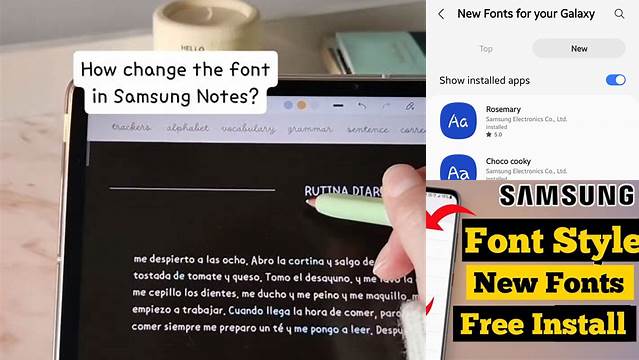
Awesome Free Fonts For Your Samsung Notes
Hey everyone! If you're a Samsung Notes aficionado like me, you know how important it is to personalize your note-taking experience. And what better way to do that than with some cool fonts? Finding free fonts for Samsung Notes can be a game-changer, transforming your mundane scribbles into visually appealing masterpieces. In this guide, we'll dive deep into the world of free fonts, exploring how to install them on your Samsung devices and offering tons of tips to make your notes stand out. So, buckle up and get ready to elevate your note-taking game! Let's get started and unlock the full potential of your Samsung Notes app with some amazing, free fonts!
H2: Why Bother with Free Fonts for Samsung Notes?
Why should you even bother with free fonts for Samsung Notes? Well, the pre-installed fonts are fine, but they're not exactly bursting with personality, are they? Adding custom fonts is like giving your notes a stylish makeover. Imagine the difference between a plain, boring notepad and one that reflects your unique style and preferences. It's all about making your notes more engaging, more memorable, and more fun to create. First impressions matter, right? When your notes look good, you're more likely to enjoy the process of taking them, which in turn leads to better retention of information. Let’s face it, when you're staring at a screen all day, something as simple as a cool font can make a world of difference! Custom fonts can also help you categorize and organize your notes more effectively. By using different fonts for different topics, you can quickly scan your notes and find what you need, making it easier to study, work, or just stay organized. Plus, it's just plain fun! Experimenting with different fonts and styles can boost your creativity and make the note-taking process more enjoyable. It's a simple way to add a touch of flair to your digital life and express yourself in a unique way. So, whether you're a student, a professional, or just someone who loves to jot things down, exploring the world of free fonts for Samsung Notes is a fantastic way to enhance your note-taking experience and make it truly your own. Trust me; you will never look at your notes the same way again. It's a small change with a big impact.
H2: Where to Find Awesome Free Fonts
Okay, so you're on board with the font revolution, but where do you actually get these free fonts for Samsung Notes? The internet is your oyster, my friend! There are tons of websites offering downloadable fonts. Google Fonts is a great place to start. It's a massive, open-source library filled with fonts of every imaginable style, all completely free to use. The best part? These fonts are designed to work seamlessly across different devices, including your Samsung devices. Another great source is DaFont, which is a popular website with an enormous selection of fonts. It’s user-friendly, but be sure to check the licensing of each font, as some are only free for personal use. Creative Fabrica and Font Squirrel are also excellent resources. Both offer a wide range of free fonts and have clear licensing information, so you know exactly how you can use each font. Always make sure that you check the license before downloading and using a font. Some fonts are free for personal use but require a license for commercial purposes. Read the fine print to avoid any potential issues. Additionally, explore sites that offer font bundles or free font of the week promotions. These can be great ways to discover new and unique fonts that you might not find anywhere else. When choosing a font, consider the legibility, especially if you're using it for extended notes. Choose fonts that are easy to read, and avoid overly elaborate or stylized fonts that can strain your eyes. With a little bit of searching, you'll have a fantastic library of free fonts for Samsung Notes at your fingertips. Start exploring and find the perfect fonts to match your style and needs. There is a font out there for everyone.
H3: Google Fonts: Your Go-To Resource
Let's delve a little deeper into Google Fonts, shall we? As mentioned, Google Fonts is a treasure trove of free fonts for Samsung Notes, and it’s incredibly easy to use. The website is well-organized, allowing you to browse fonts by category (serif, sans-serif, handwriting, monospace), language, and even by the features you're looking for. You can also preview each font with your own text to see how it will look. That's a huge advantage, right? You can quickly assess whether a font fits your needs. Once you've found a font you like, downloading it is a breeze. You’ll typically download the font files (usually in .ttf or .otf format) and then install them on your device. Google Fonts is also great because all the fonts are open-source. This means they're not only free to download but also free to use for both personal and commercial projects. They're designed to be accessible and versatile, so you can use them confidently without worrying about licensing issues. Another advantage of Google Fonts is the consistency and quality. Google takes great care in curating its font library, ensuring that all fonts are of high quality and optimized for digital use. You'll find fonts that look great on your Samsung Notes, enhancing readability and visual appeal. Using Google Fonts is a perfect way to add a professional touch to your notes, documents, and other digital creations, all without spending a dime. It is a gift, guys, and you should take advantage of it! So go ahead, explore, experiment, and find the perfect fonts to make your Samsung Notes shine. You won't regret it.
H3: DaFont: Exploring a Vast Font Universe